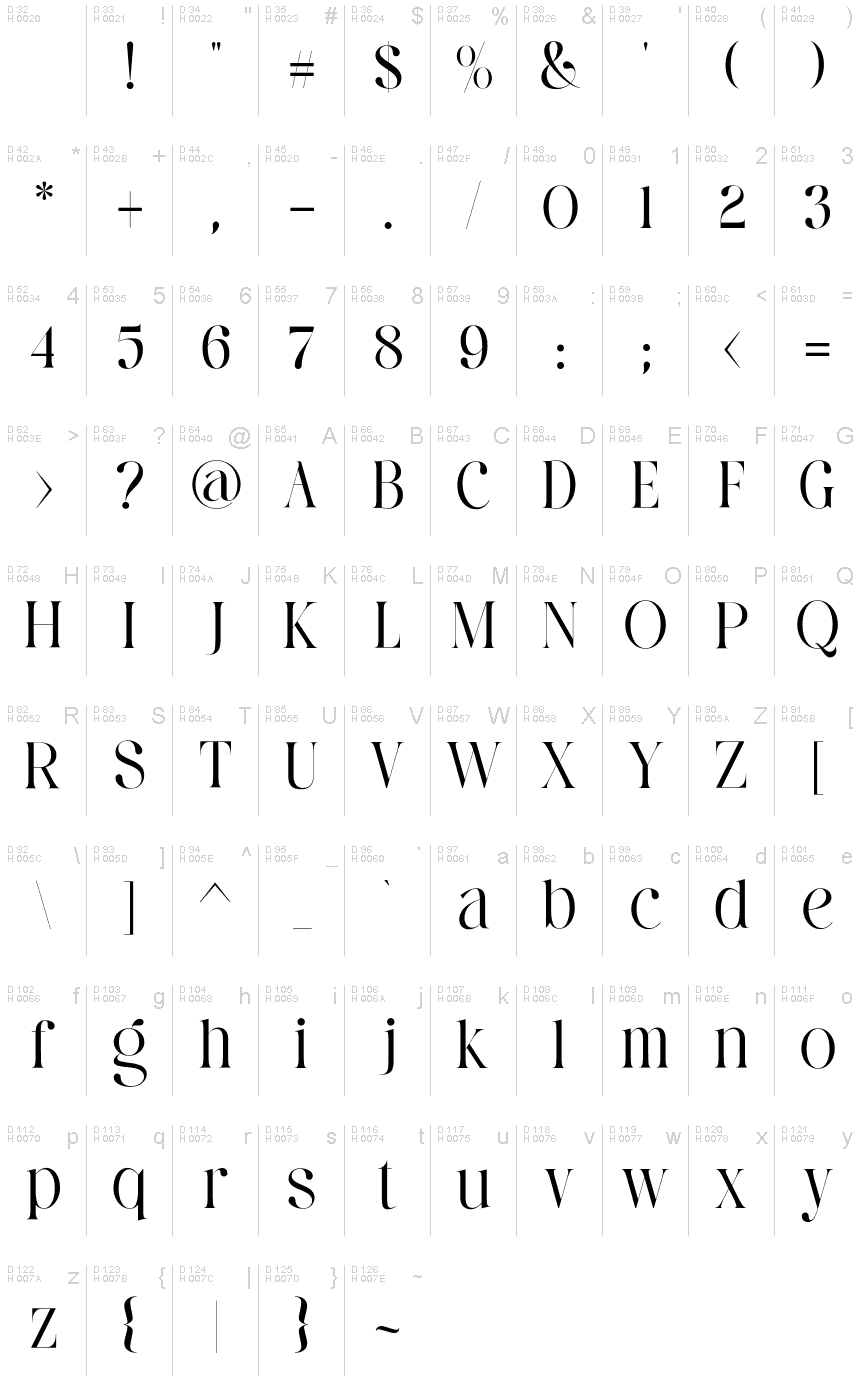
Dating Historia Light
Dating Historia Light by ToniStudio is a narrow, light serif font. Perfect for adding a touch of elegance to projects such as wedding invitations, logo design, and book covers.